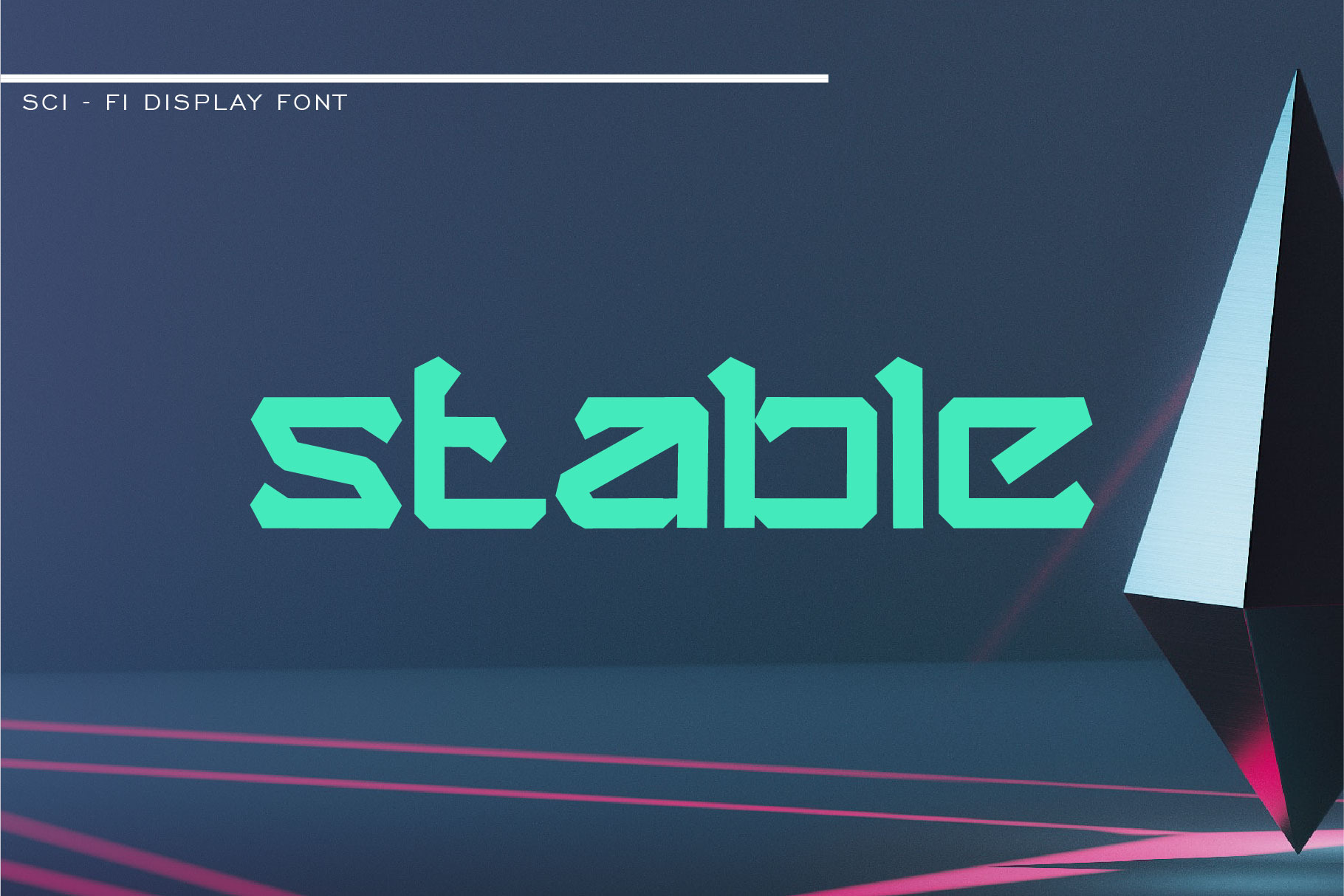
stable logo font
stable is a new font for design of sharp and powerful logos. The font is suitable for creating wordmarks, Logo, titles, taglines. Use alternates to emphasize separate letters in your text.